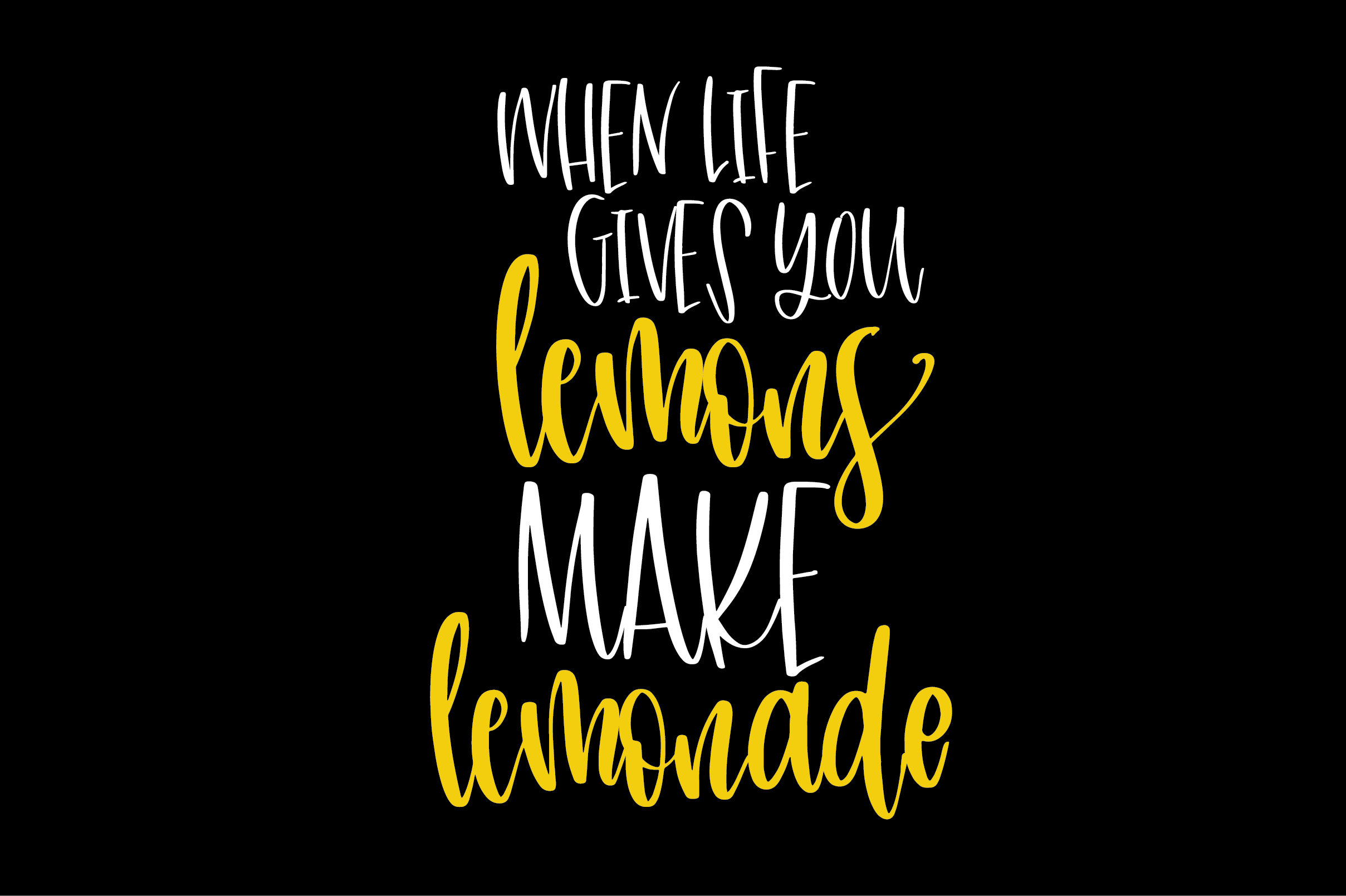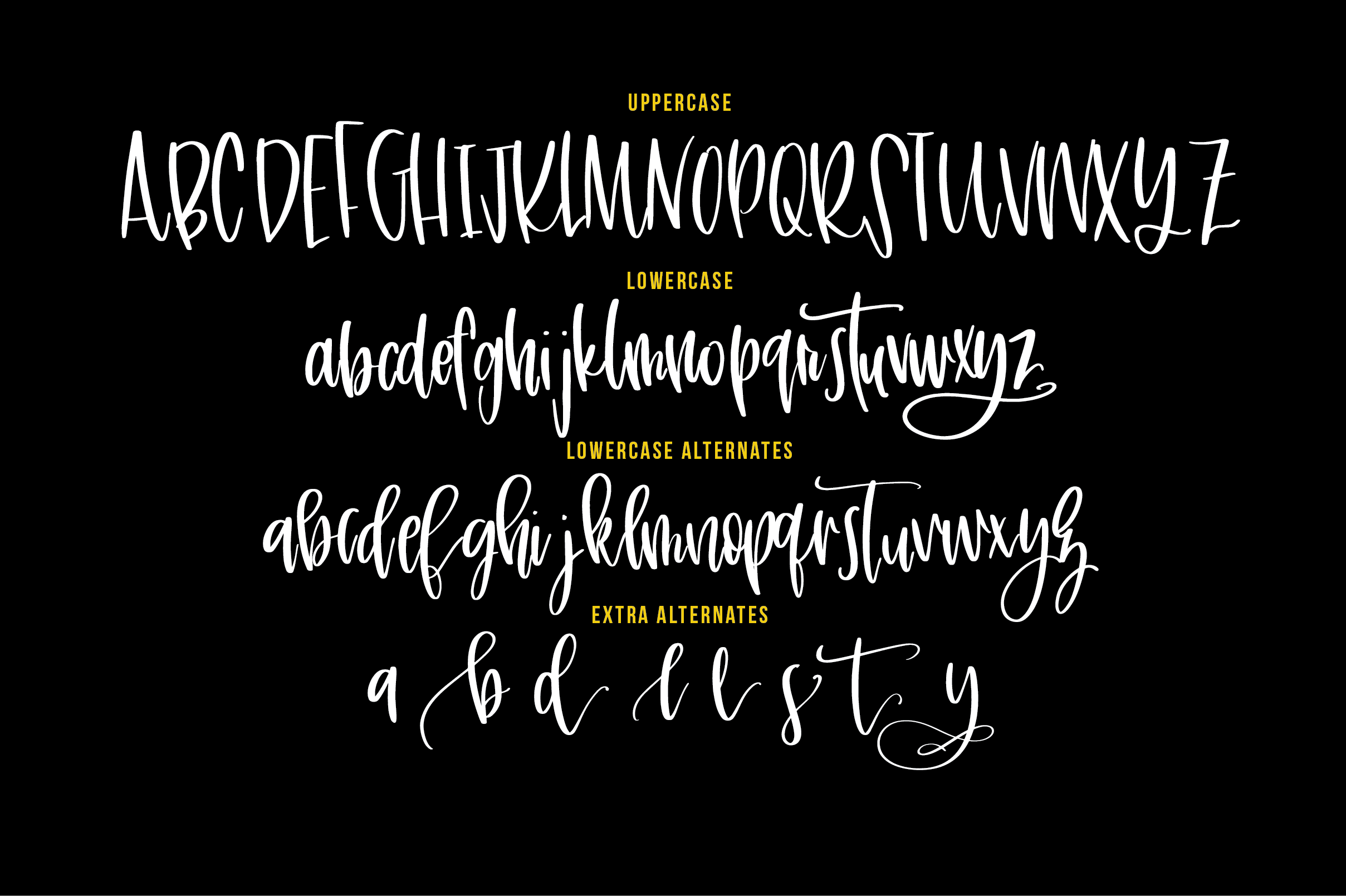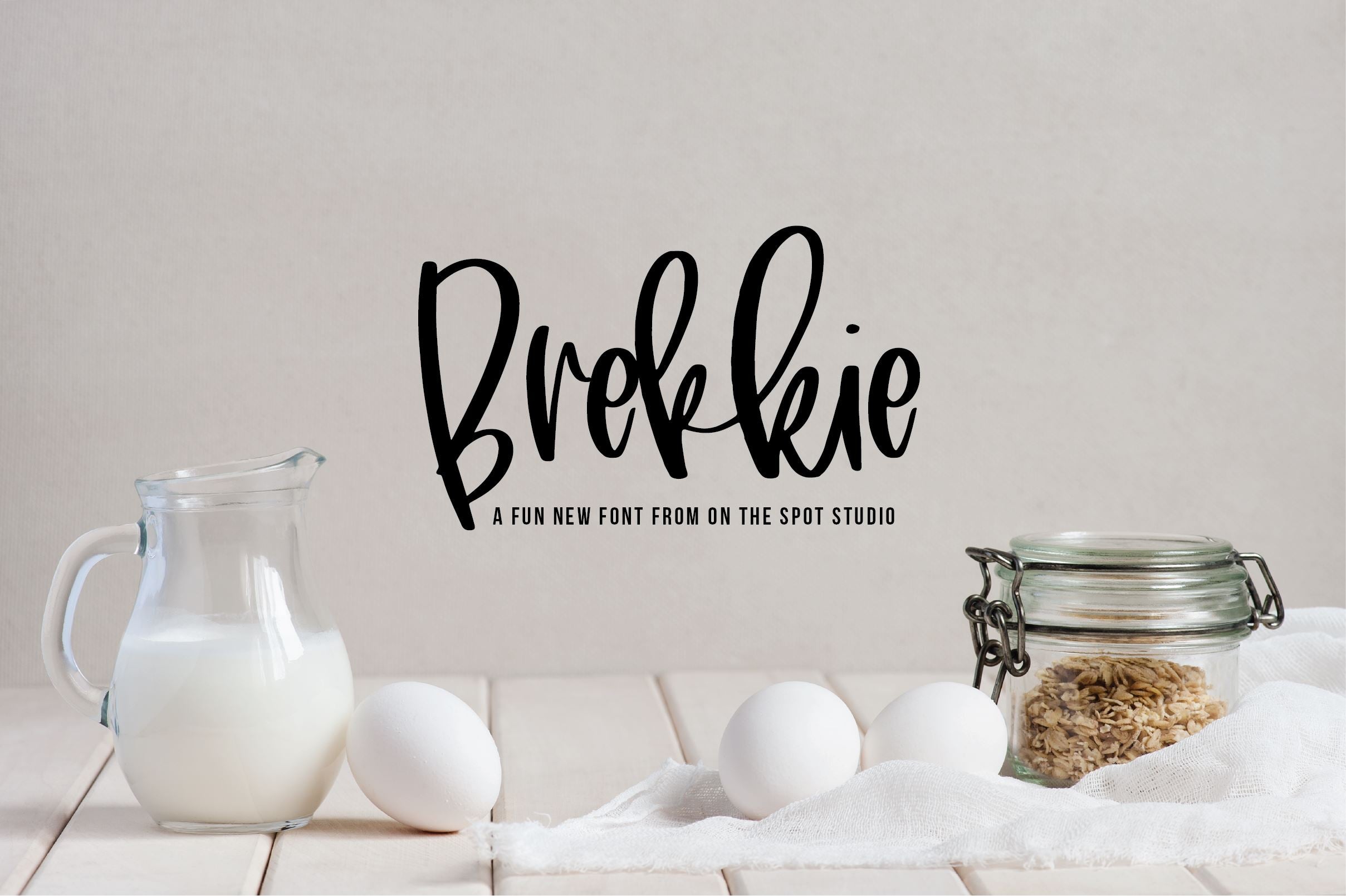
Meet Brekkie! Brekkie is a fun and quirky script font that includes an uppercase set that can be used as a separate font all together! Includes Upper, Lower, Alternate lower, Bonus Alternates, Numbers & Standard Punctuation.